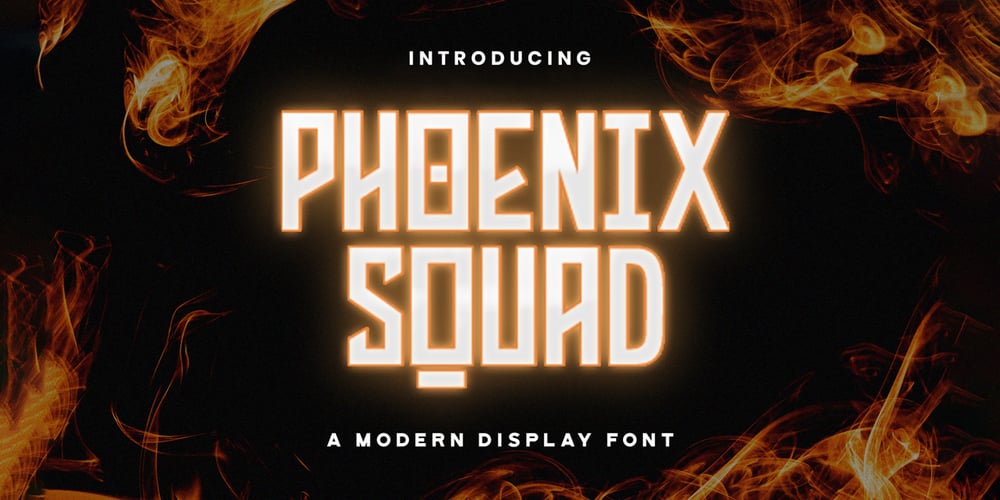
Phoenix Squad Font Family was designed by Virgiawan Listanto and published by Stringlabs Creative Studio. Phoenix Squad contains 1 styles and family package options. Phoenix Squad is a modern and bold display font. Add this font to your favorite creative ideas and notice how it makes them come alive!